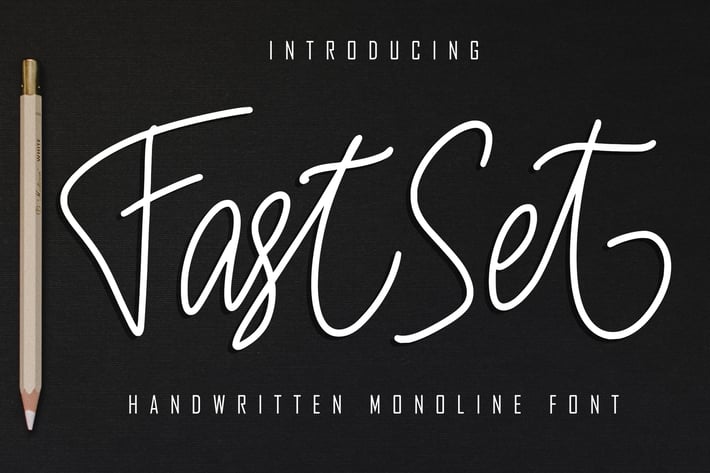
FastSet Handwritten Monoline Font
FastSet is a handwritten signature script with a natural flow and beautiful style.
FastSet is perfect for invitation design projects, prewedding, branding, logos, wedding designs, social media posts, advertisements, product packaging, product design, labels, photography, watermarks, invitations, stationery, and any project that requires handwriting tastes .
Ligature\
Basic Latin Language Support (AÀÁÂÃÄÅCÇDÐEÈÉÊËIÌÍÎÏÑOØÒÓÔÕÖUÙÜÚÛWYÝŸÆß )